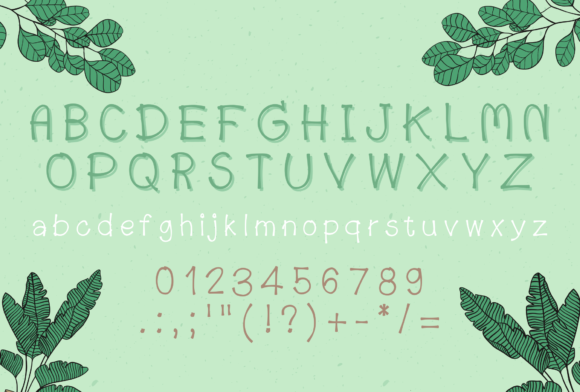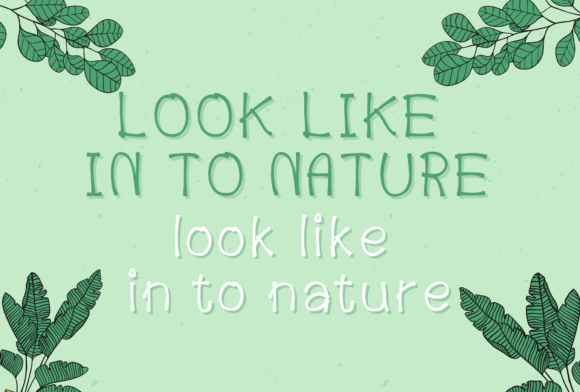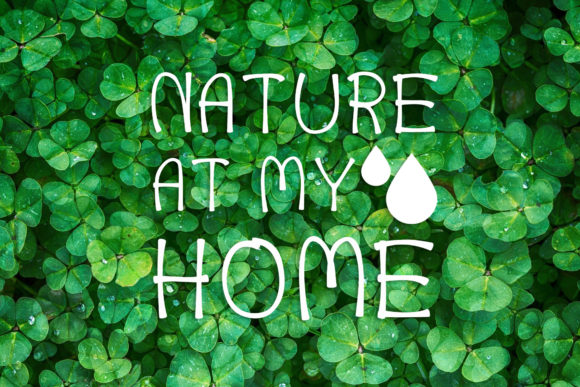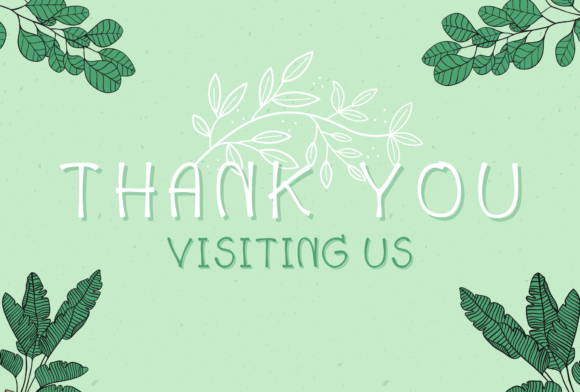
Little Plant Font
About Little Plant Font
Little Plant is a cute and lovely script font that’s built upon the theme of wood. It works great in any casual purposes or in nature-related projects or environmental topics. This font is a great choice for any creative idea!